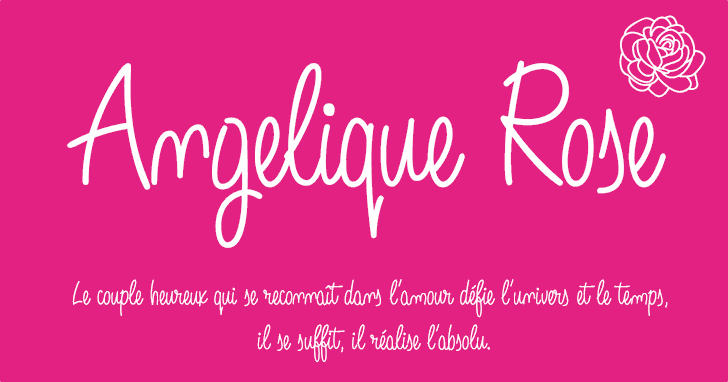
Free angelique rose font for any designer that is looking to display their design professionally. This typeface file was found from the amazing source called Font Space. Easily amaze your audience with this fancy font and make your graphic designs pop up from the crowd.